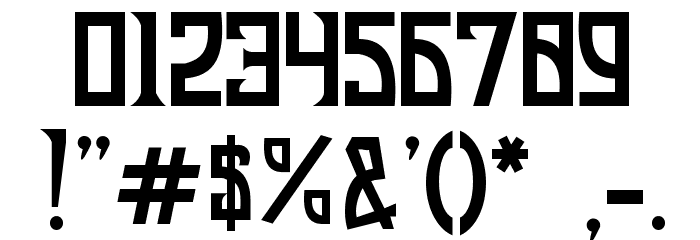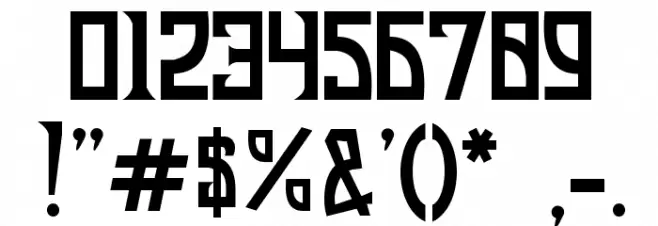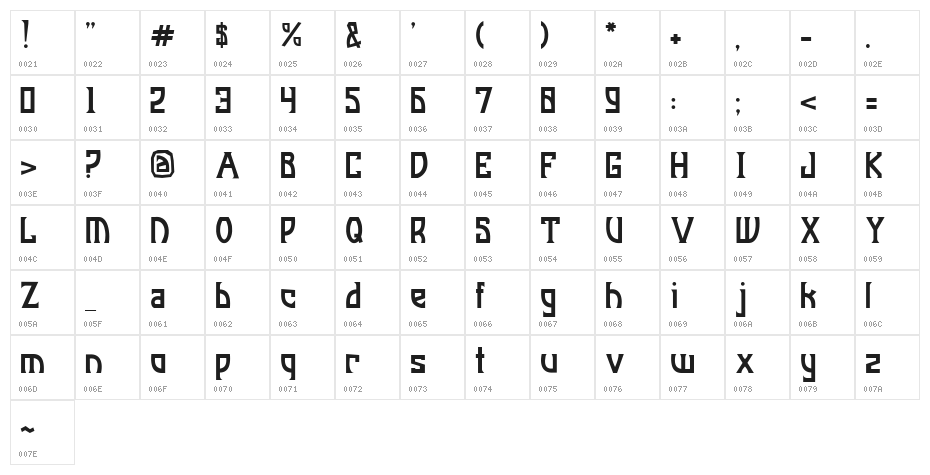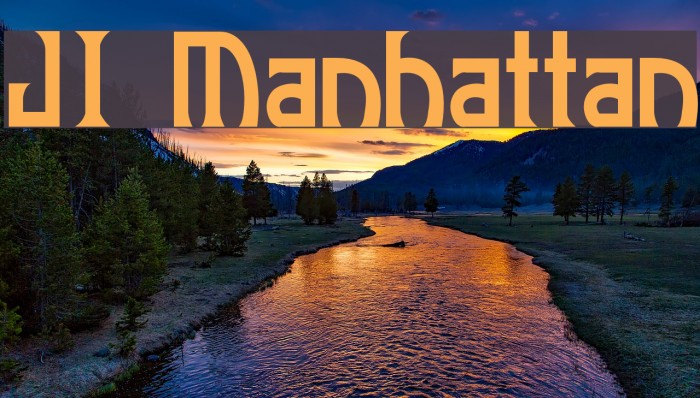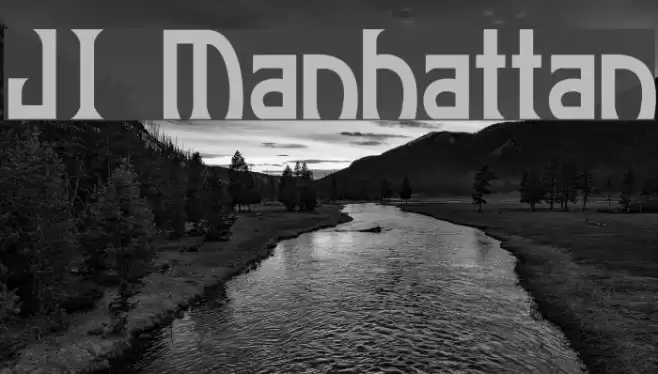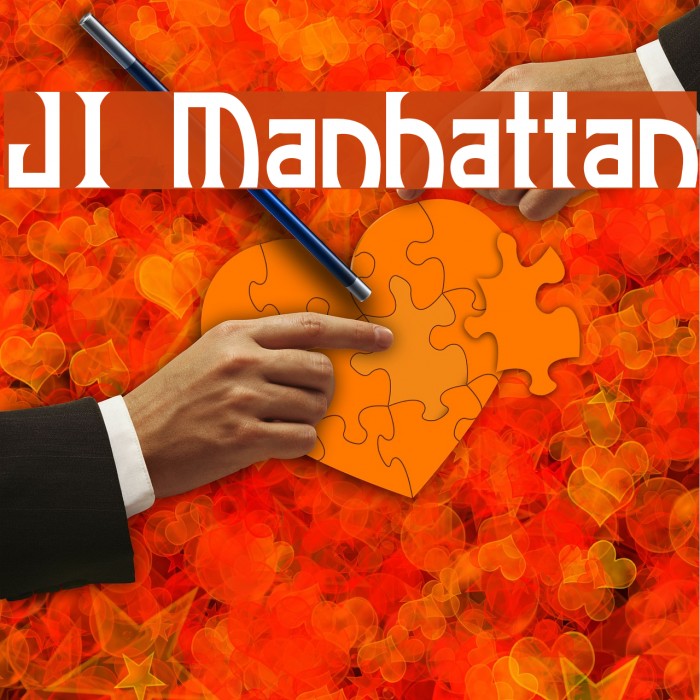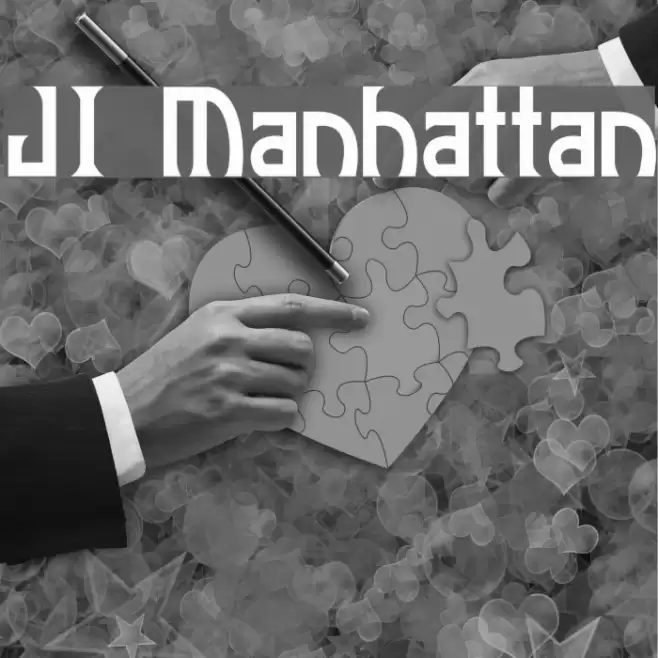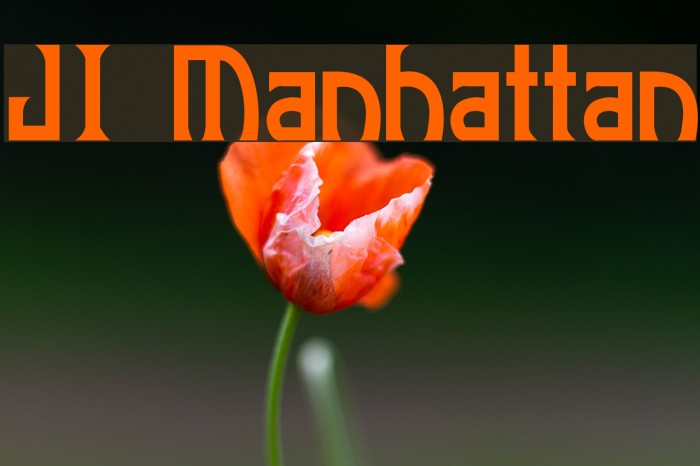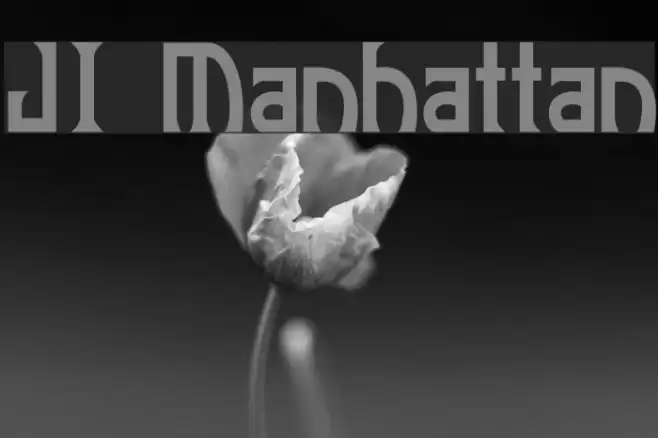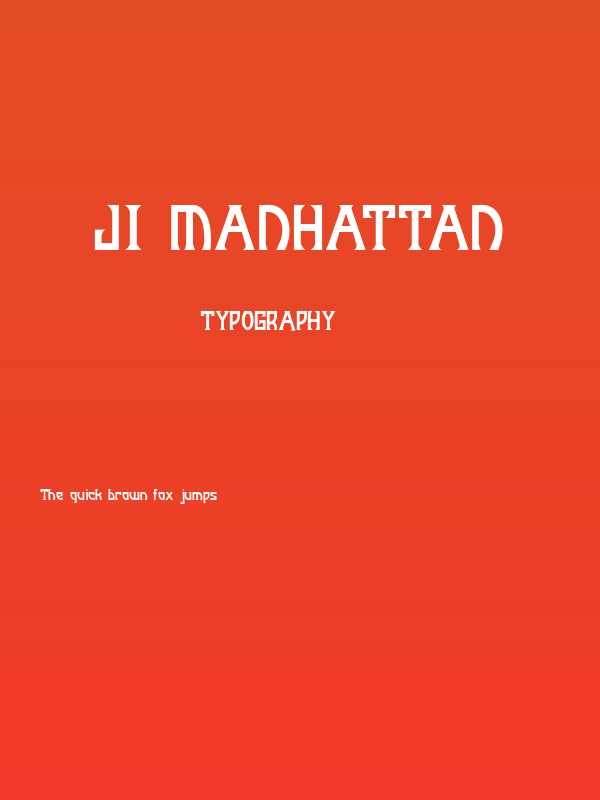
JI Manhattan Font
JI Manhattan Description
This font features a bold and striking design with a strong geometric influence. The uppercase letters are characterized by sharp angles and a consistent stroke width, giving them a modern and assertive appearance. The lowercase letters maintain the geometric style but with slightly softer curves, providing a balanced contrast. Numbers are bold and clear, making them highly legible. Special characters are designed to match the overall aesthetic, ensuring cohesion across all glyphs. The font's unique style makes it suitable for impactful headlines and attention-grabbing designs.
| Proposed Projects | Ideal for branding, posters, headlines, and any design requiring a modern, bold statement. |